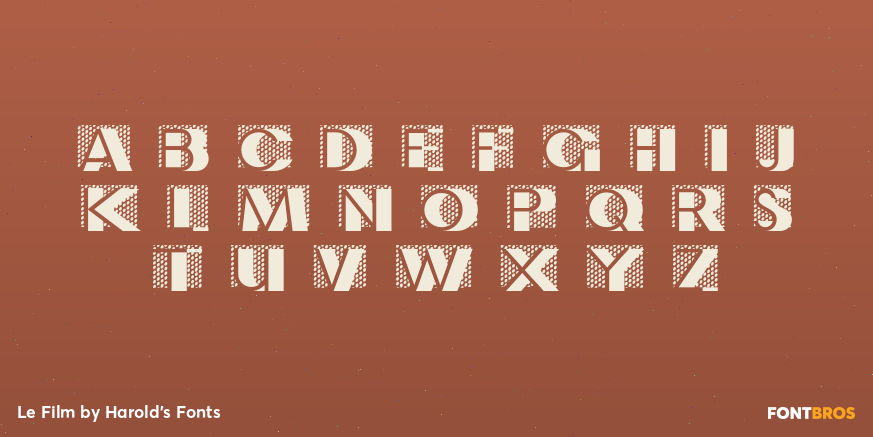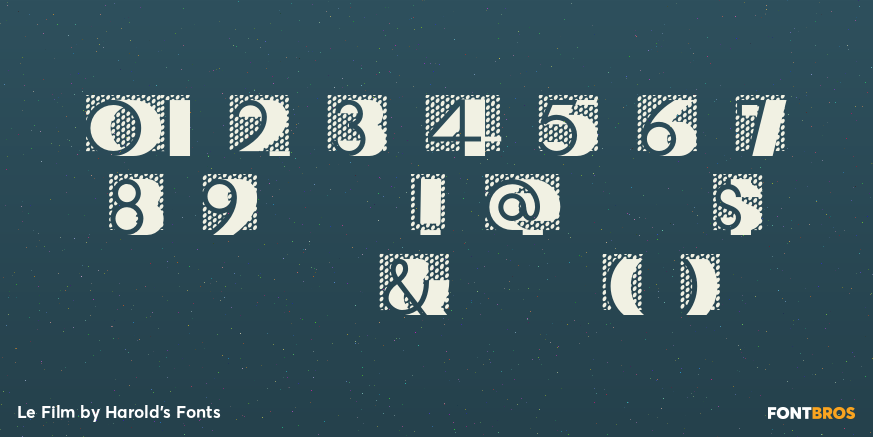
Le Film
Font Family by Harold's Fonts
LE FIL< is my digital interpretation of the classic analog Art Deco font of the same name. Bold shadows and heavy dot shading give this a dramatic look.
Le Film (variously known as Film and Initiales Film) was designed by Marcel Jacno and released in 1927 by Deberny & Peignot of Paris. The characters are conceived as a line of three-dimensional forms viewed from the front and slightly to the right. The letters are negative white shapes defined by the background pattern of elliptical black dots and the solid black "sides" of the 3-D letter.
Although I have only found documentation of a single original font, I have created 2 companion fonts, which, when layered and colored, can be used to highlight the letters and/or the shadowy sides.